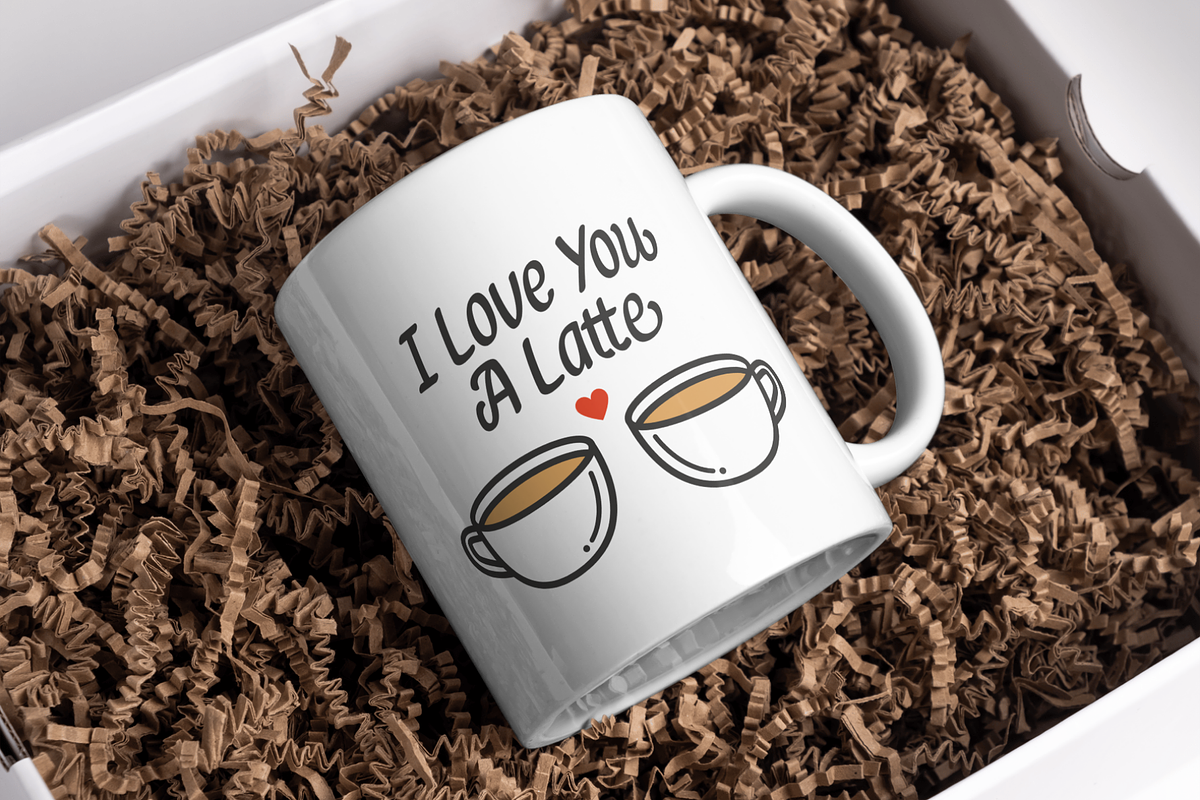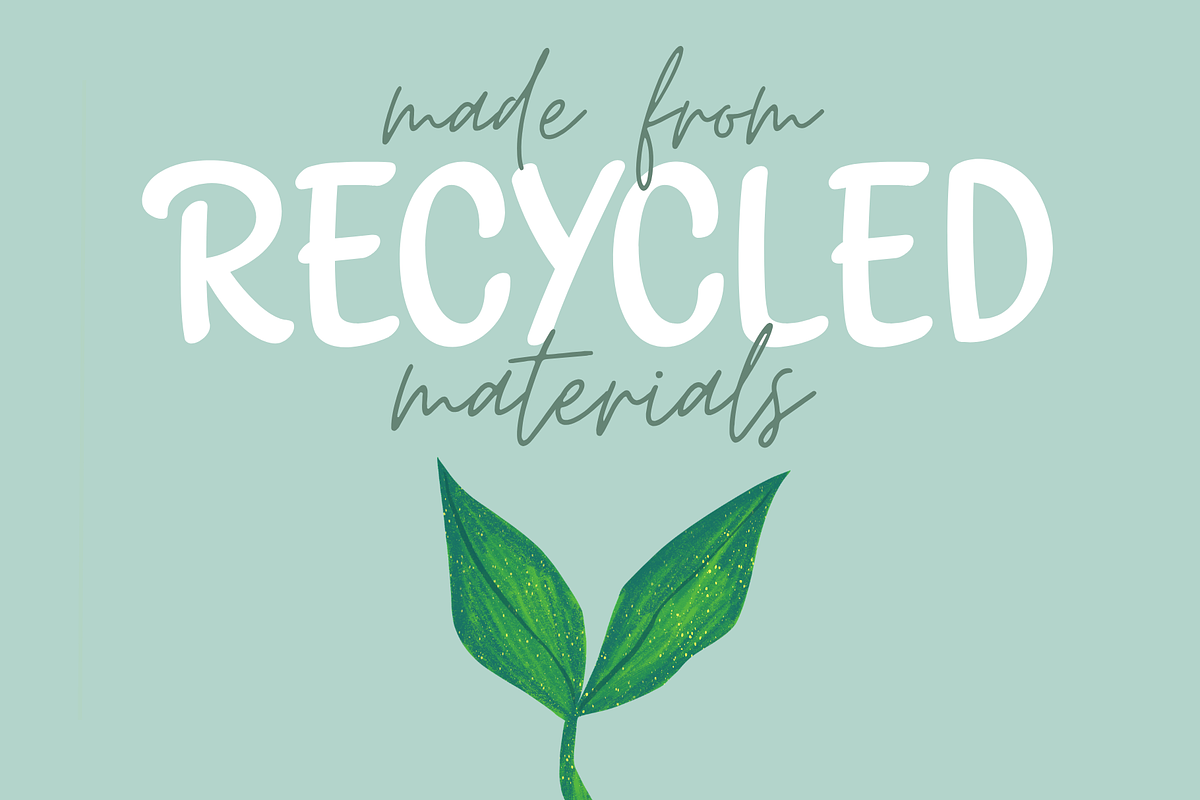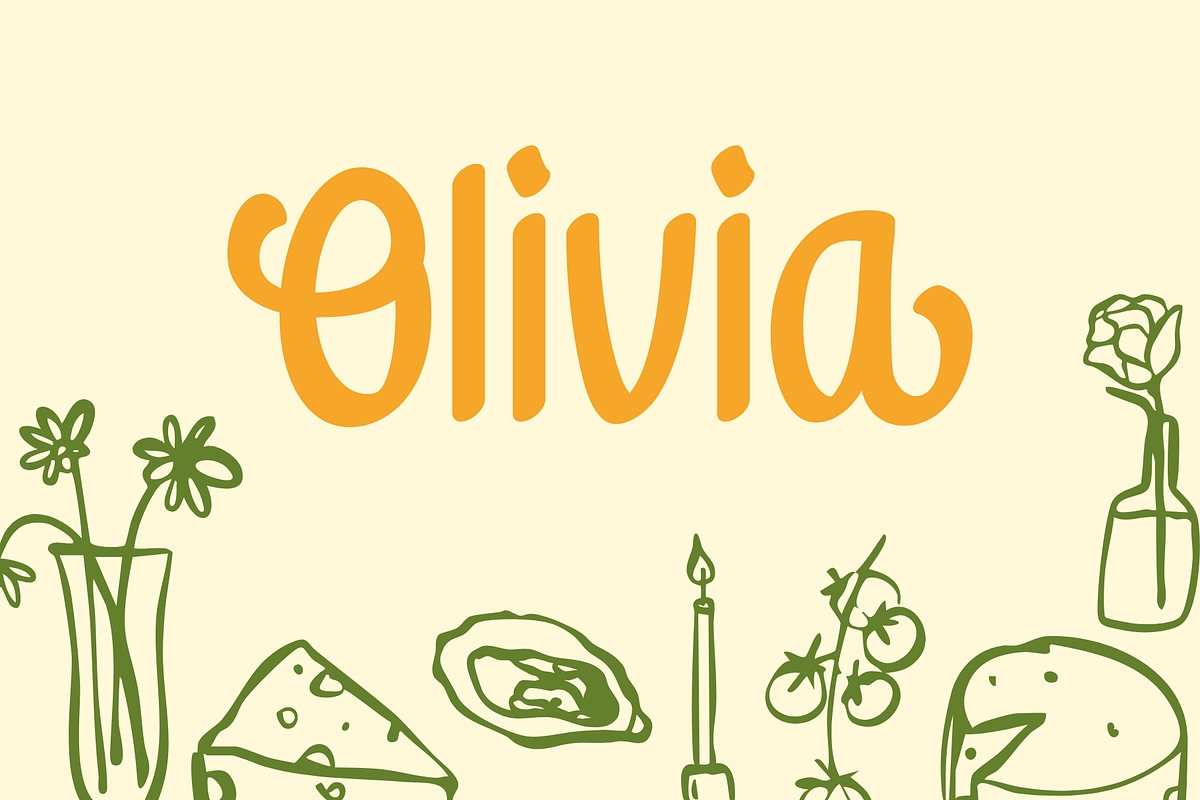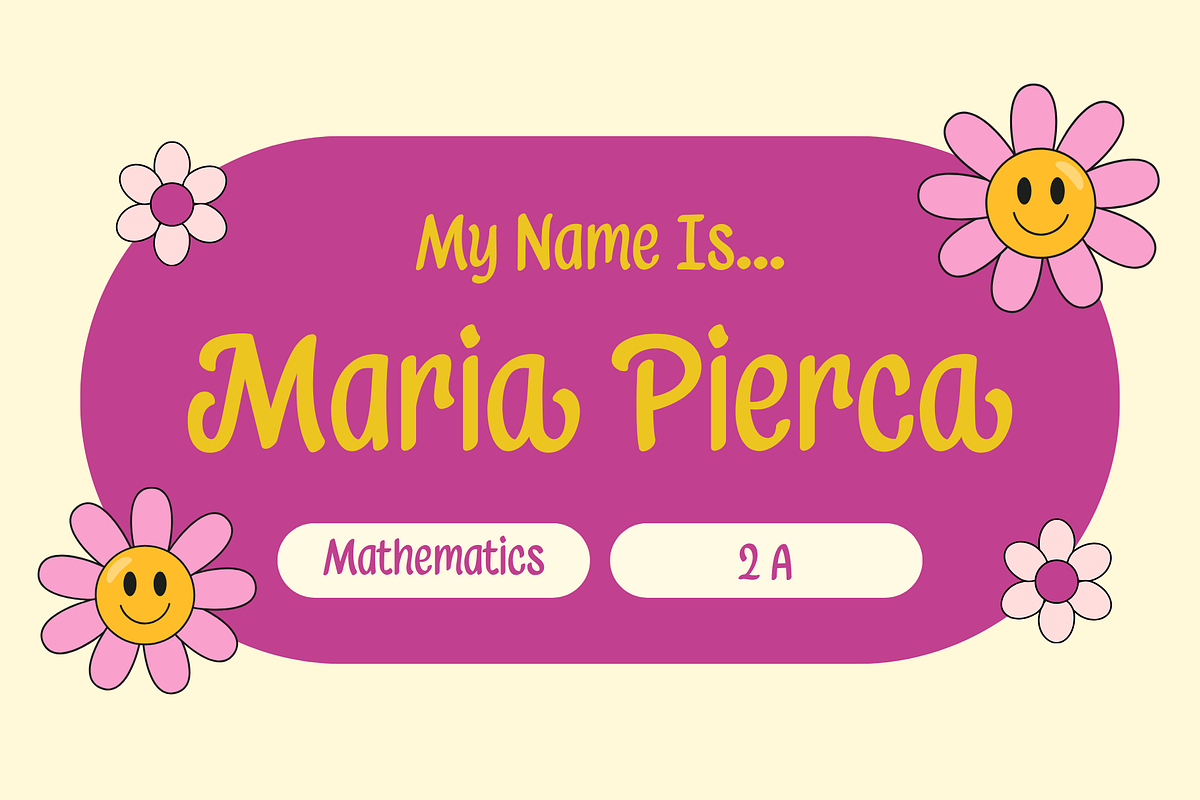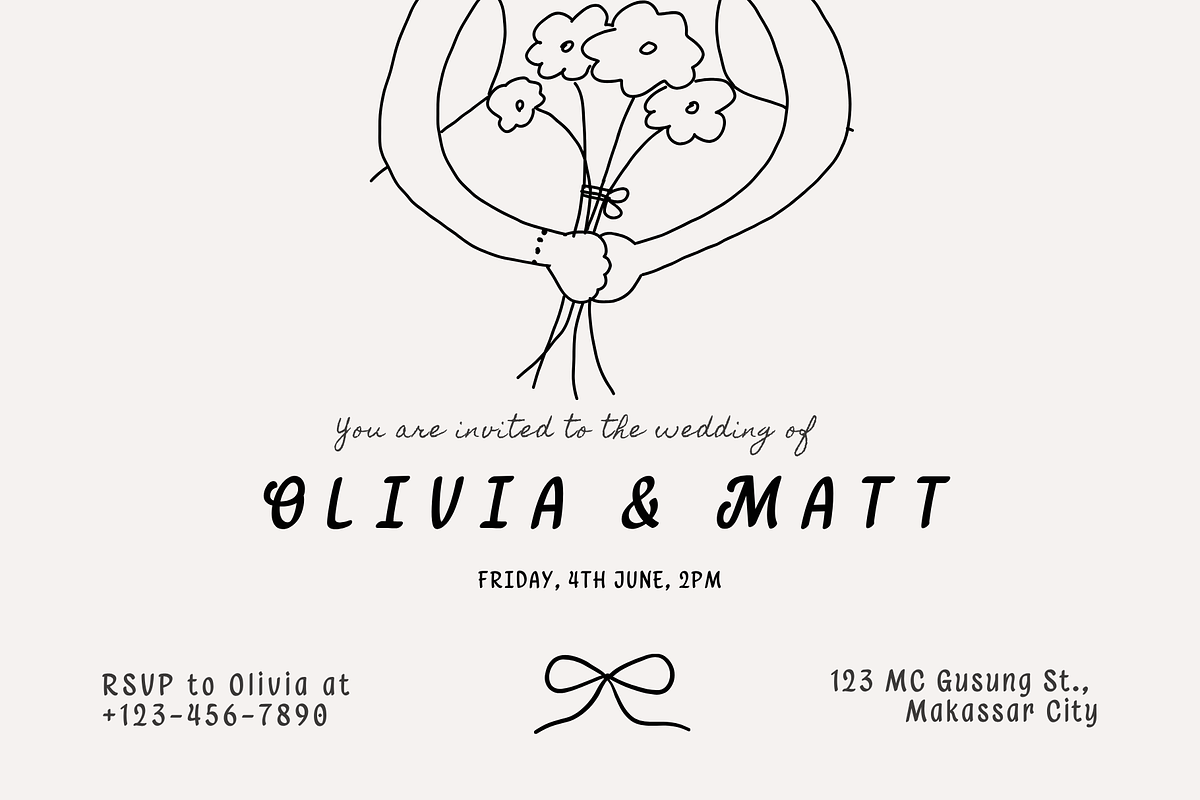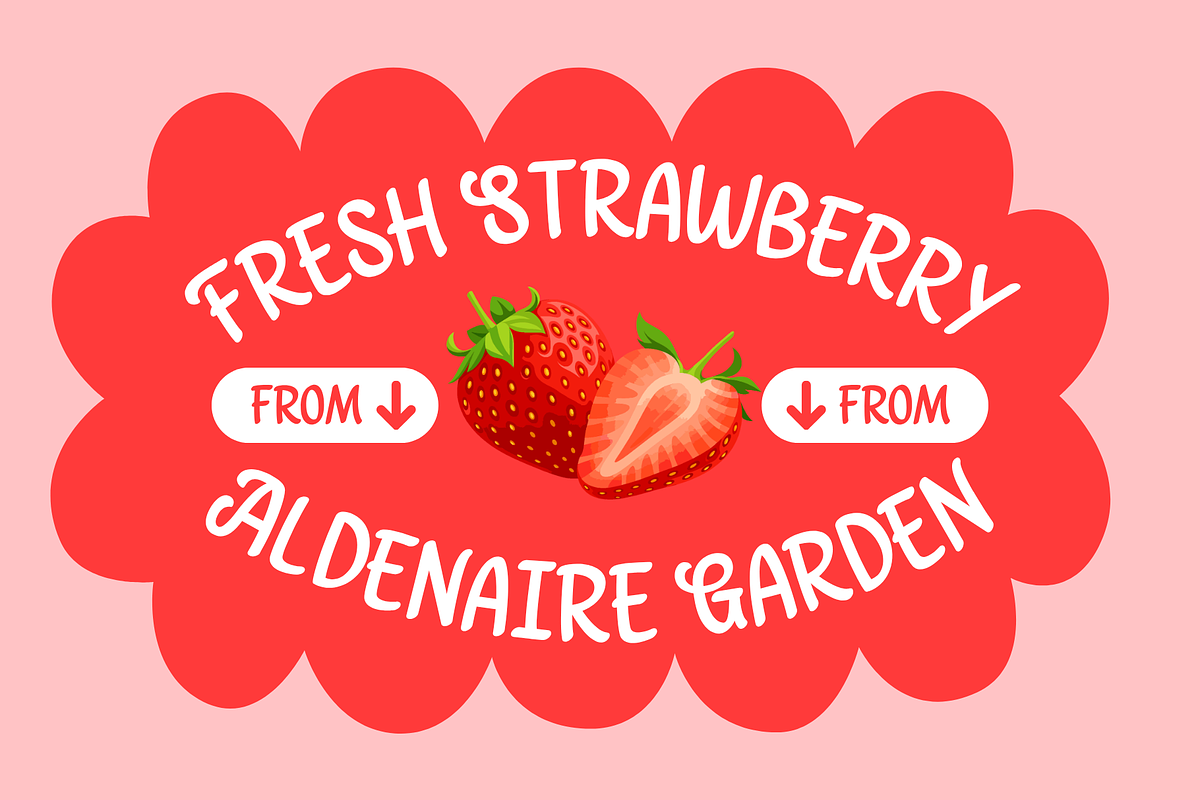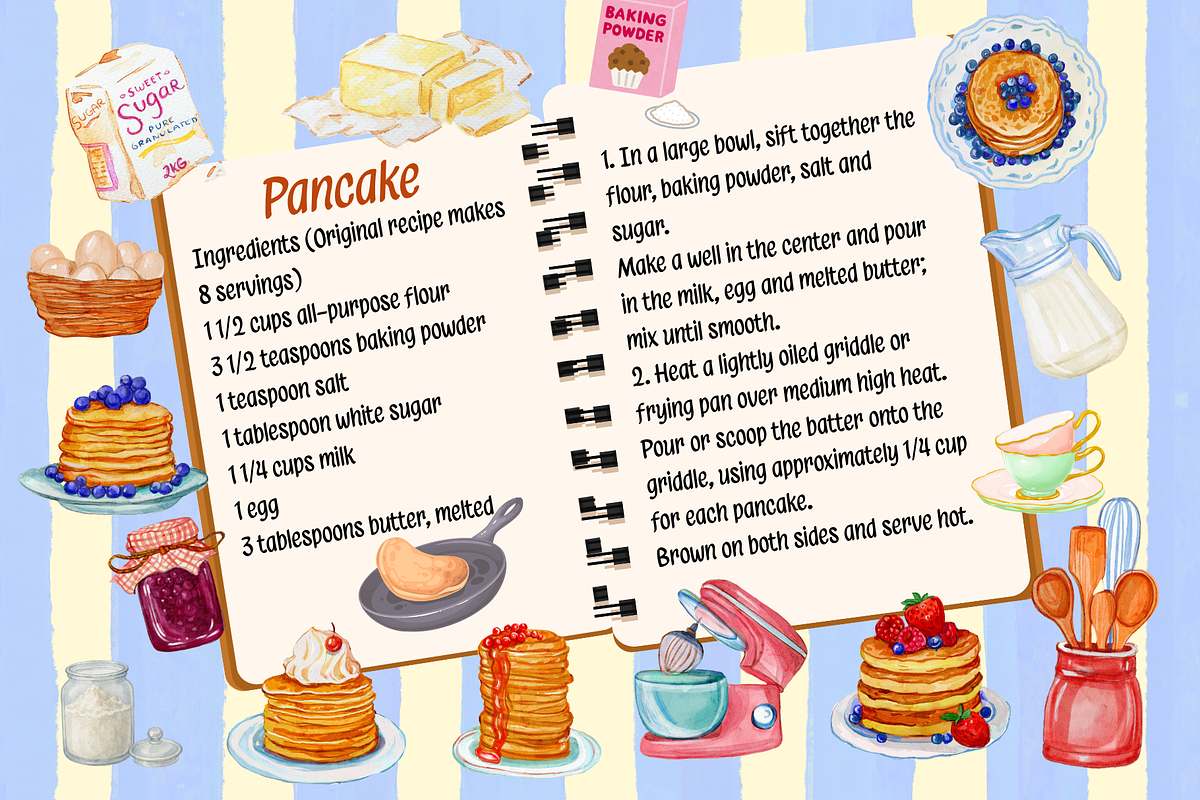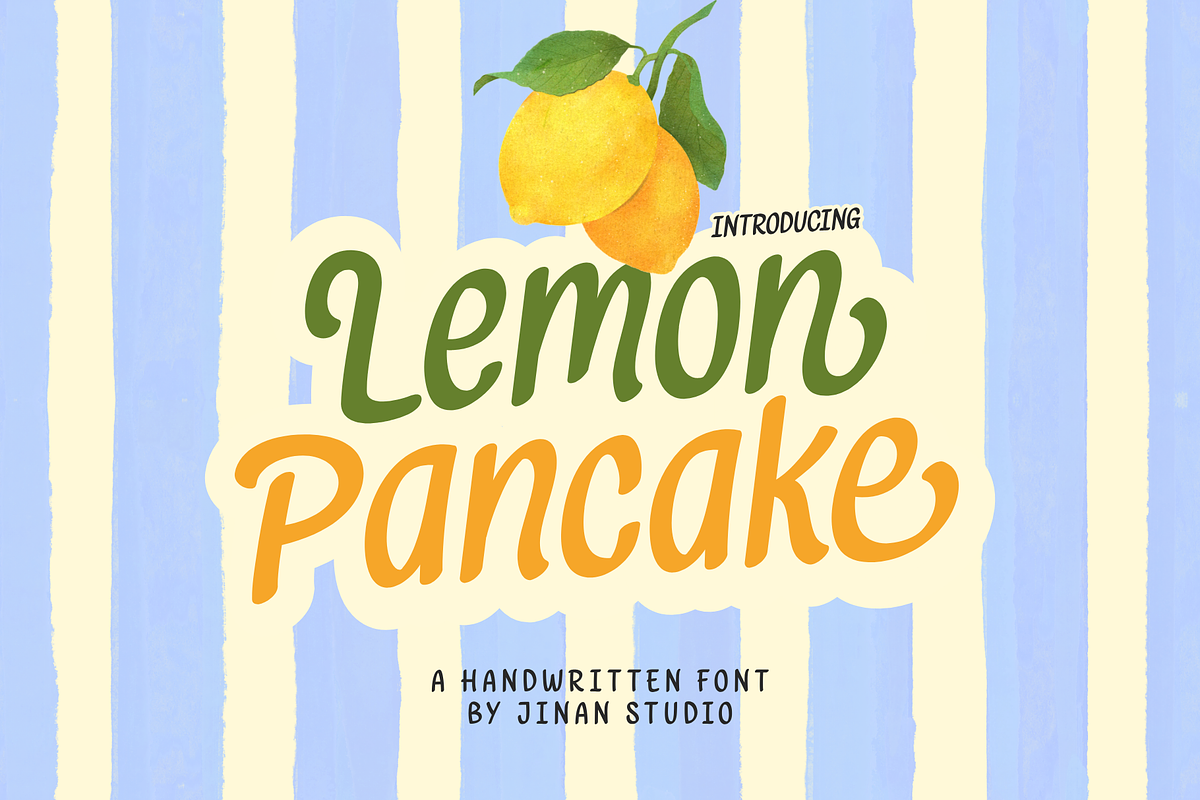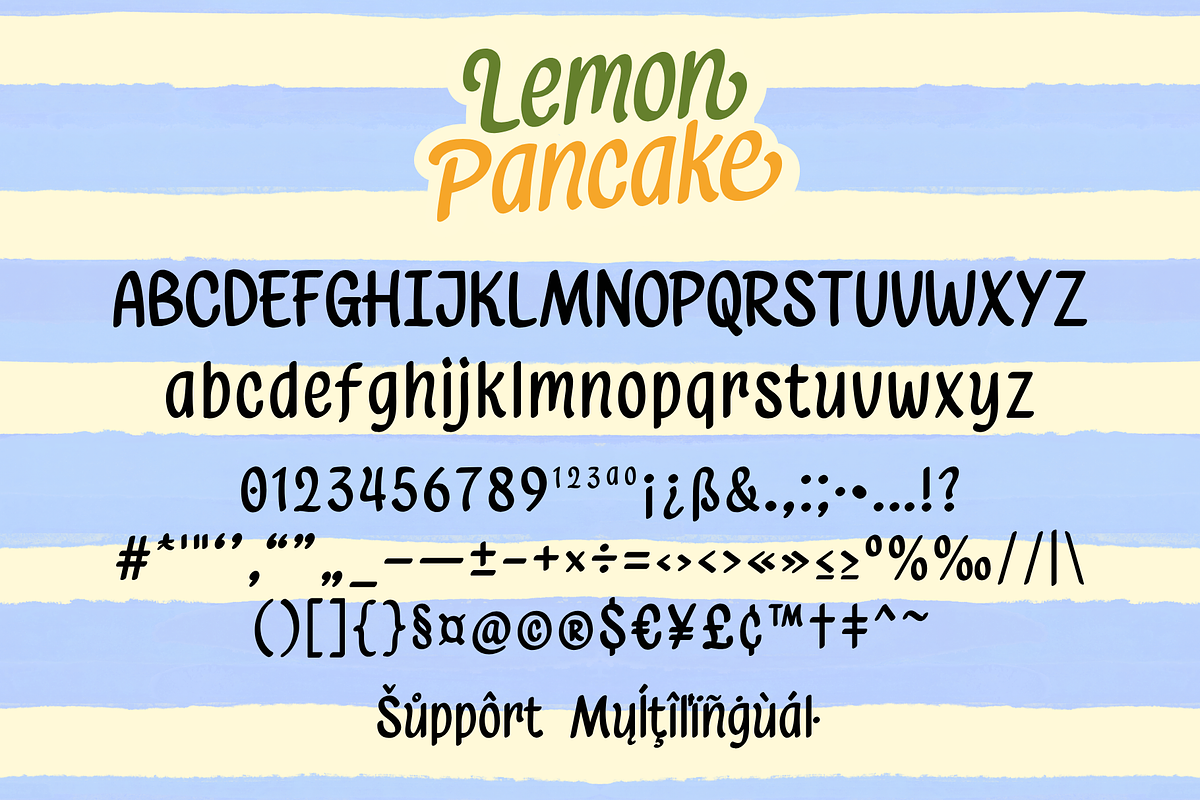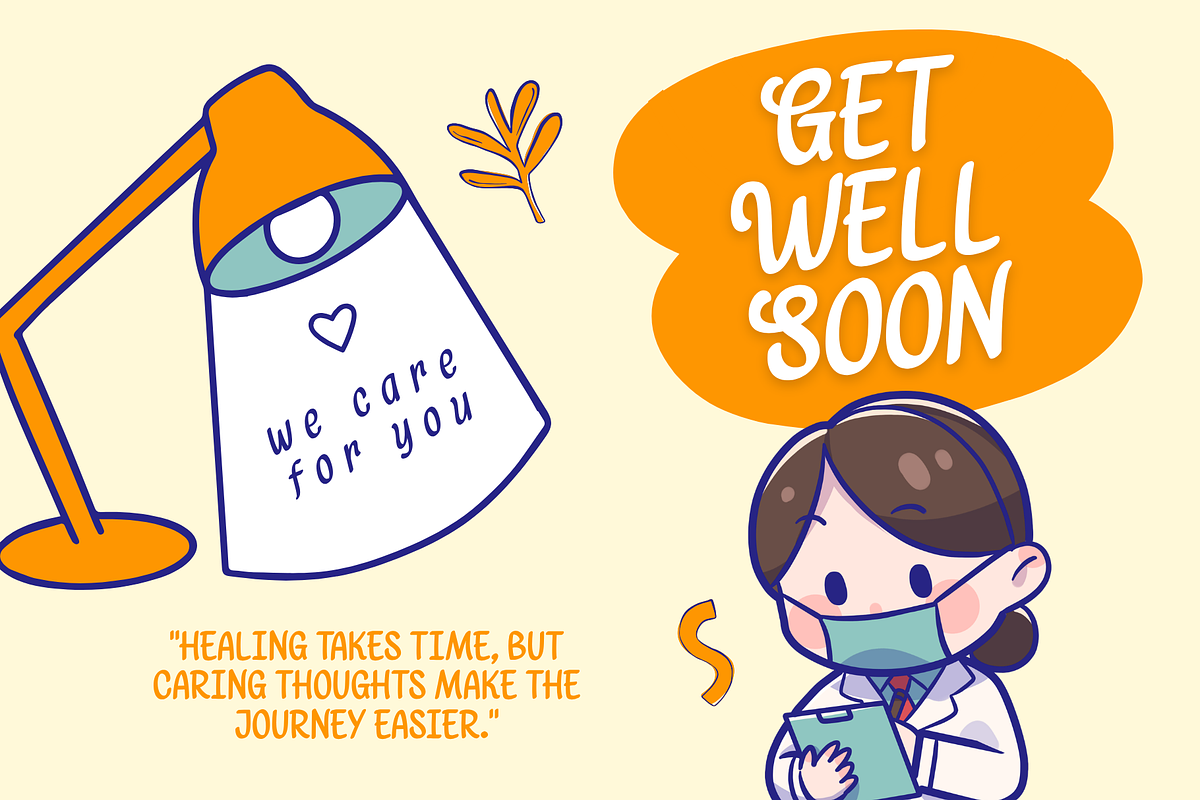
Lemon Pancake
Lemon Pancake is a playful handwritten font with a bold, smooth, and organic style, perfect for adding a fun and cheerful touch to your designs. Inspired by fresh lemons, cozy breakfasts, pancakes, and delicious food branding, this versatile font comes with a regular and italic version, giving you more creative flexibility for your projects.
Perfect for café logos, bakery branding, food packaging, restaurant menus, labels, stickers, T-shirts, mugs, social media graphics, posters, invitations, and Cricut or Silhouette projects. Its friendly hand-drawn look makes Lemon Pancake a great choice for cute, homemade, fresh, and joyful design concepts.
Uppercase & lowercase
Some Ligatures
Italic Version